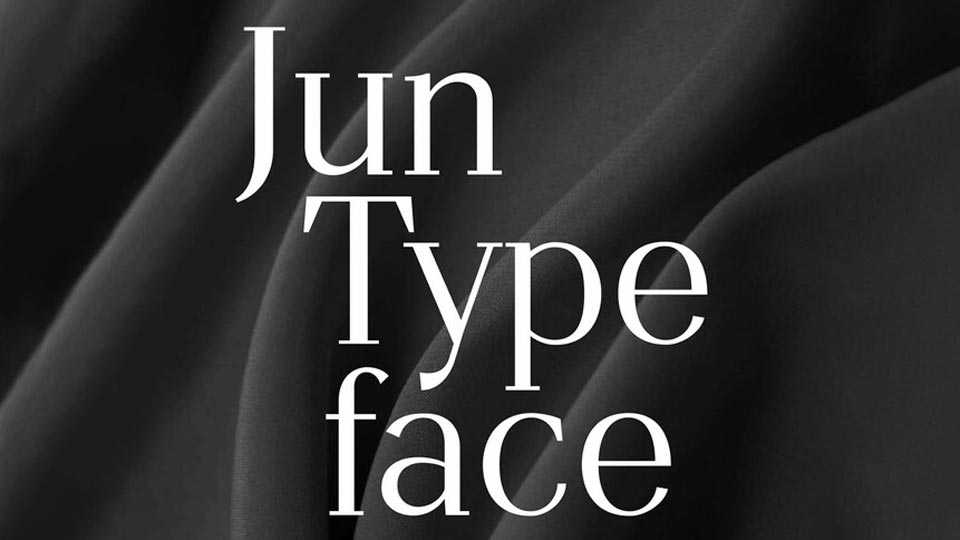
Download Jun font, a modern and elegant serif typeface designed to bring sophistication and grace to your typography. Its refined letterforms are complemented by a sleek, flowing italic that adds versatility and charm.
Designer: Vasiliy Shishkin